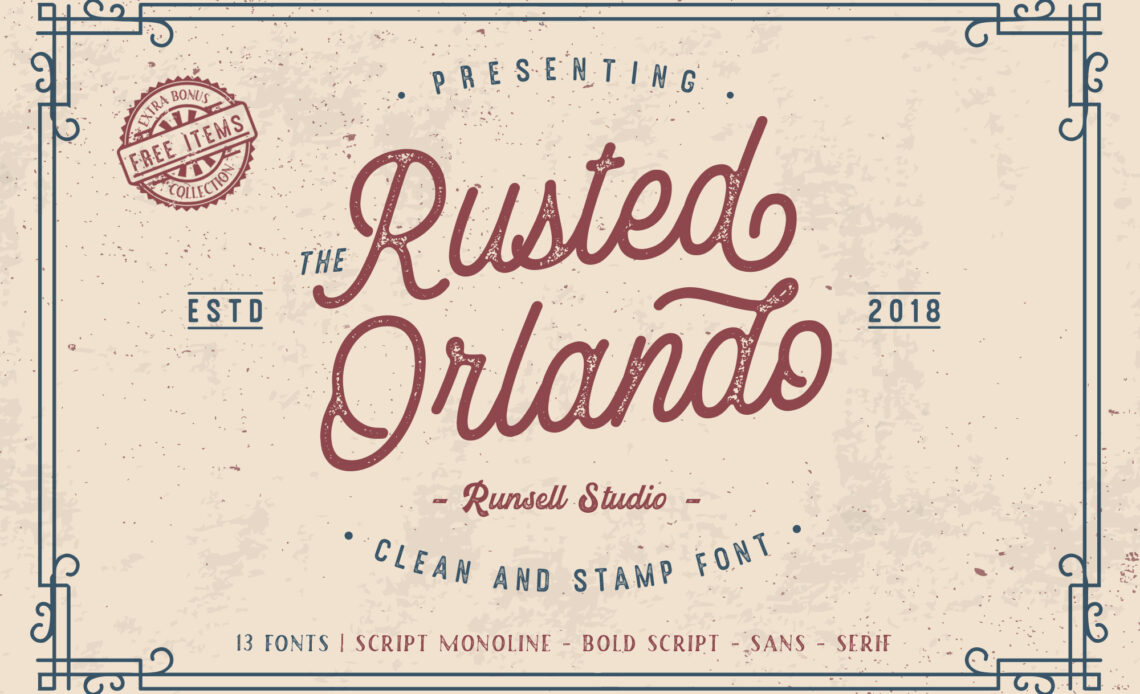
Introducing Rusted Orlando Font, a mesmerizing vintage font collection that will take your designs to new heights of creativity! Created by the talented Runsell Graphic, this font family is a must-have for any designer looking to add a touch of nostalgia and uniqueness to their projects.
Rusted Orlando Font offers a diverse range of styles, including monoline script, bold script, sans, serif, and more. Each font in this collection has been meticulously crafted to capture the essence of vintage typography, evoking emotions of nostalgia, authenticity, and timelessness.
One of the standout features of Rusted Orlando Font is its extensive bonus pack. Not only will you receive the stunning font styles, but also a treasure trove of design elements to enhance your projects. From captivating illustrations to eye-catching ornaments and badges, this font set provides all the tools you need to create truly remarkable designs.
Imagine the possibilities with Rusted Orlando Font. Craft captivating logos that leave a lasting impression, design elegant wedding invitations that exude charm, or create stunning packaging that stands out on the shelves. With its wide range of styles and design support, this font collection is truly a game-changer for any creative project.
What sets Rusted Orlando Font apart from the rest is its ability to evoke emotions and tell a story through typography. The script fonts flow effortlessly, mimicking the hand-drawn feel of vintage signage. The sans and serif fonts provide a solid foundation for any design, adding a touch of sophistication and elegance.
In conclusion, Rusted Orlando Font is not just a font collection – it's a gateway to a world of limitless design possibilities. With its vintage charm, diverse styles, and comprehensive design support, this font set is a must-have for any designer looking to make a statement. Unlock your creativity and download Rusted Orlando Font today!